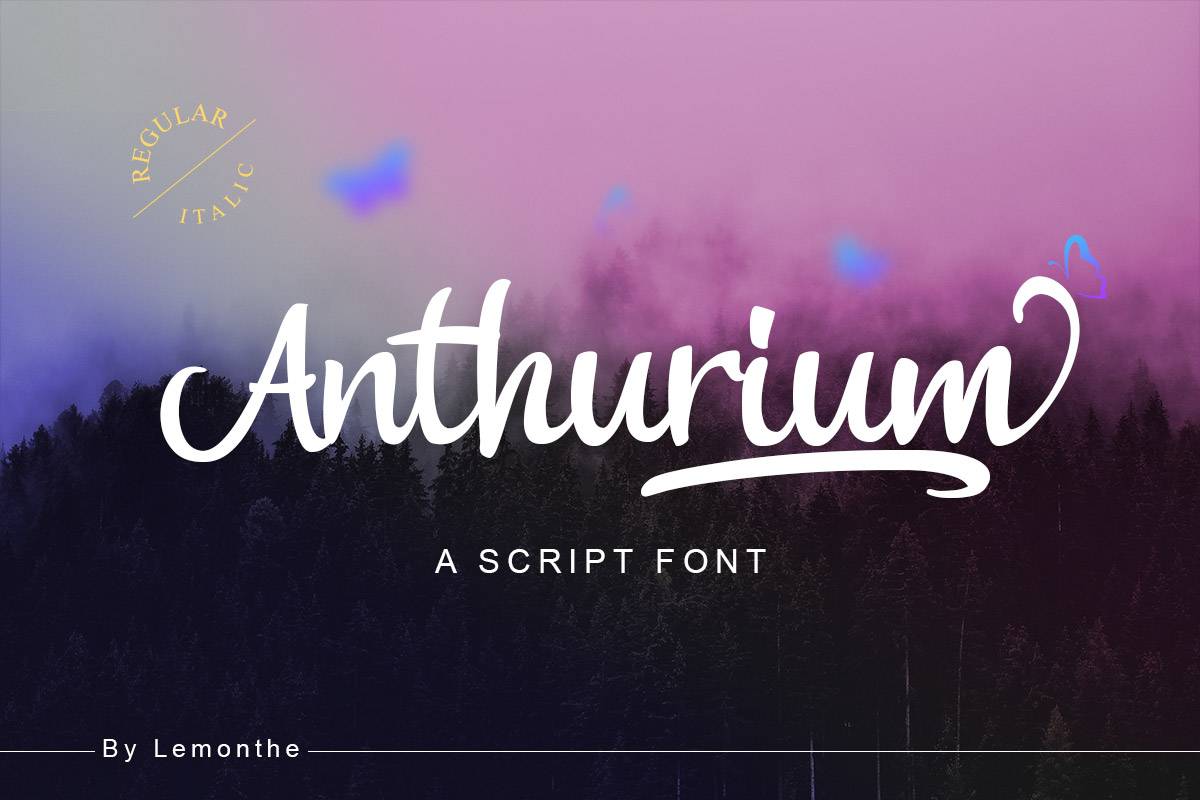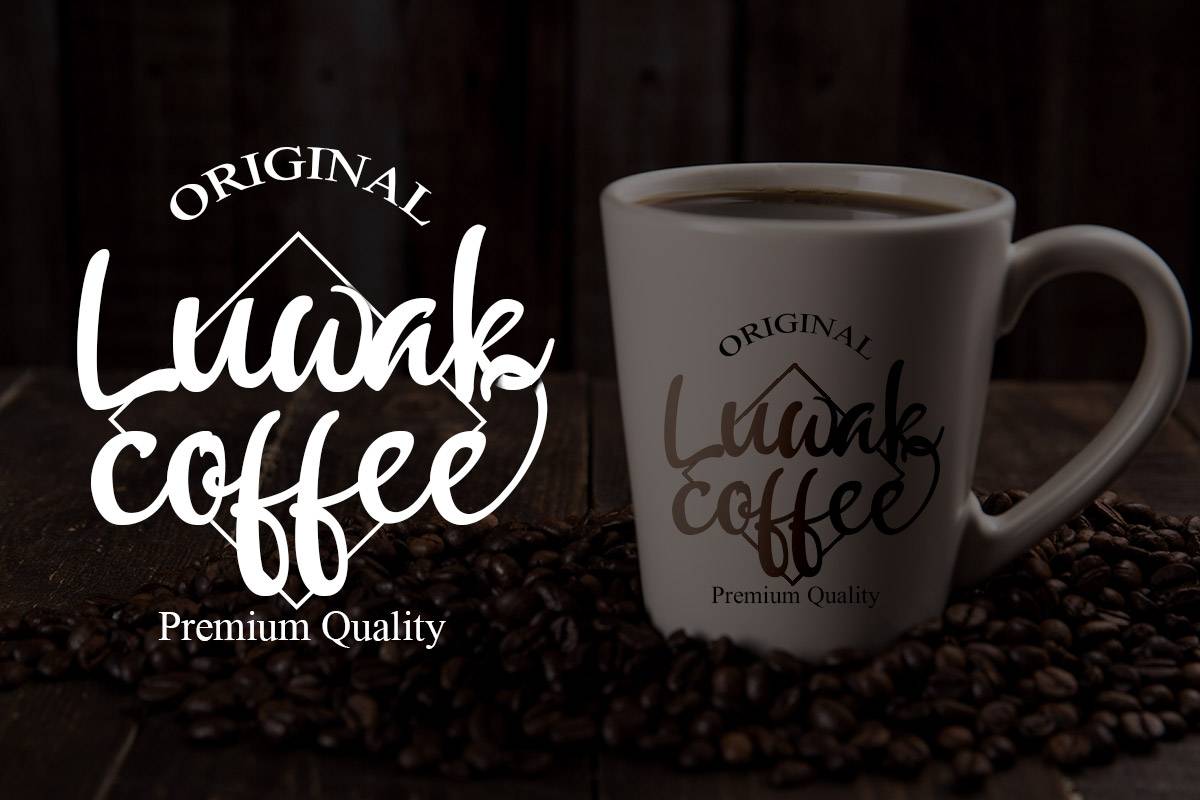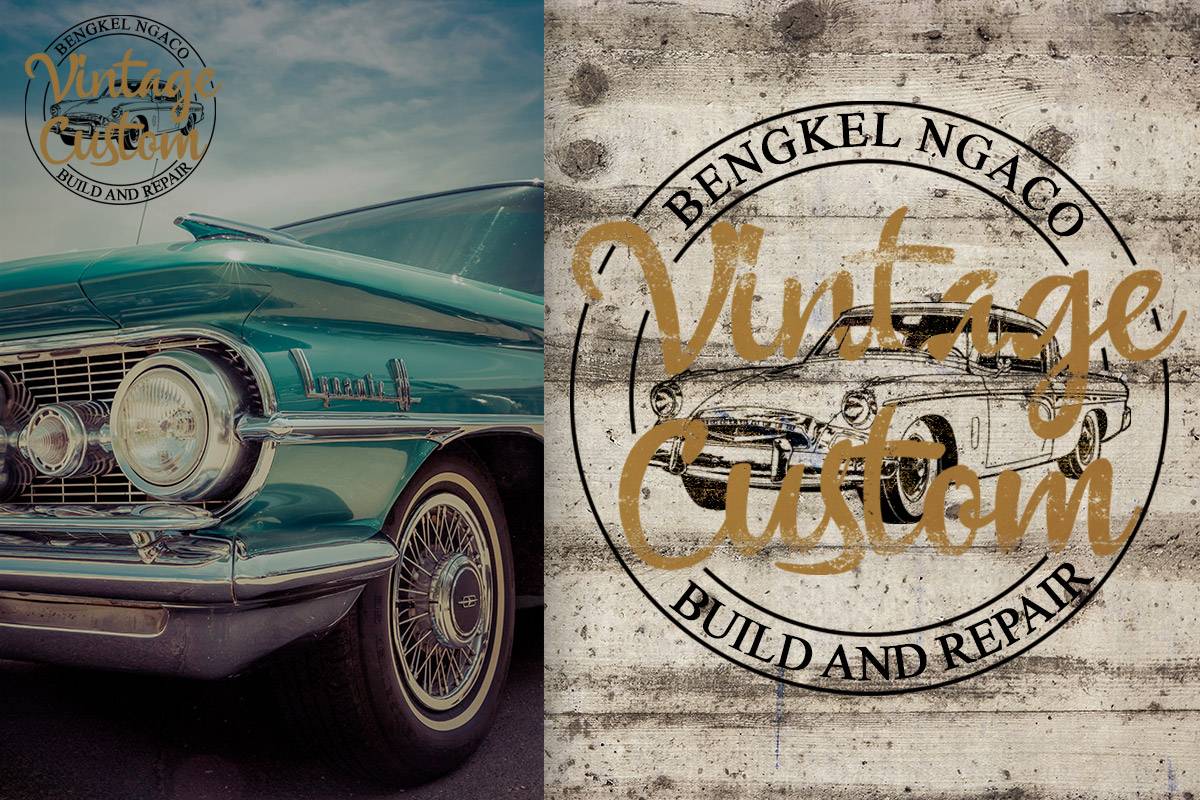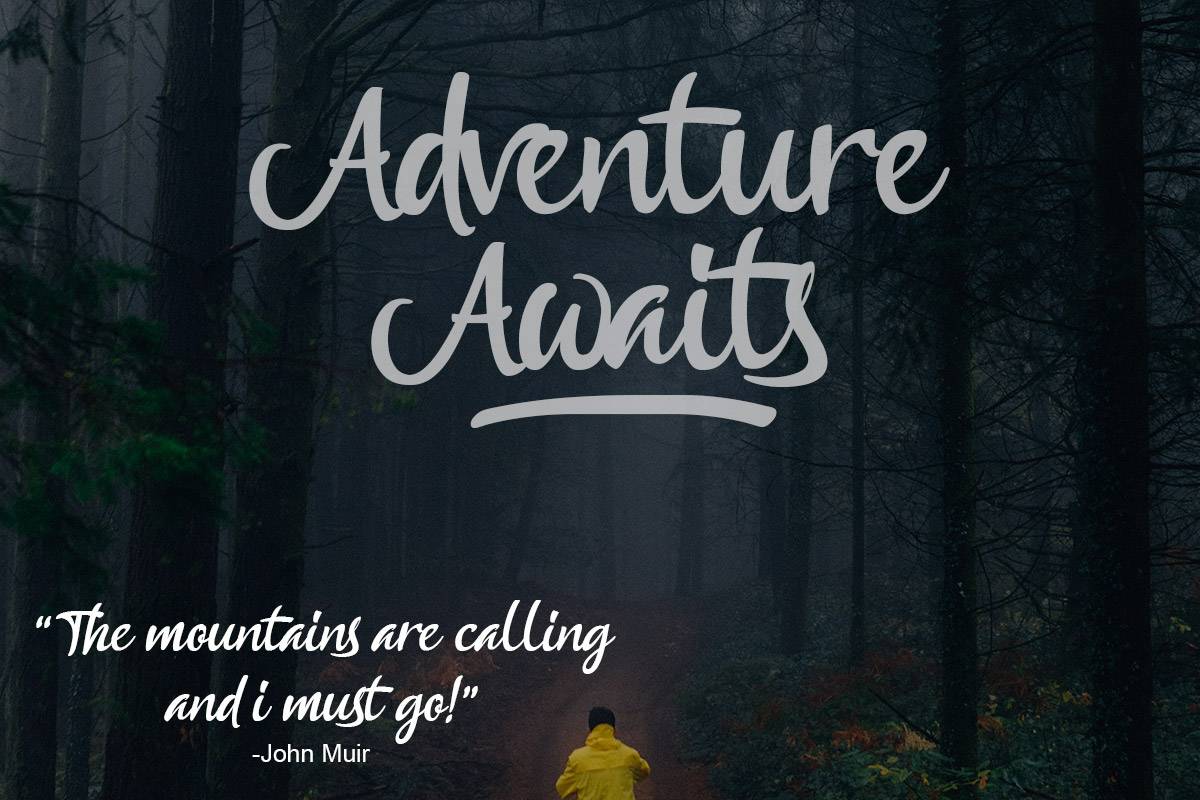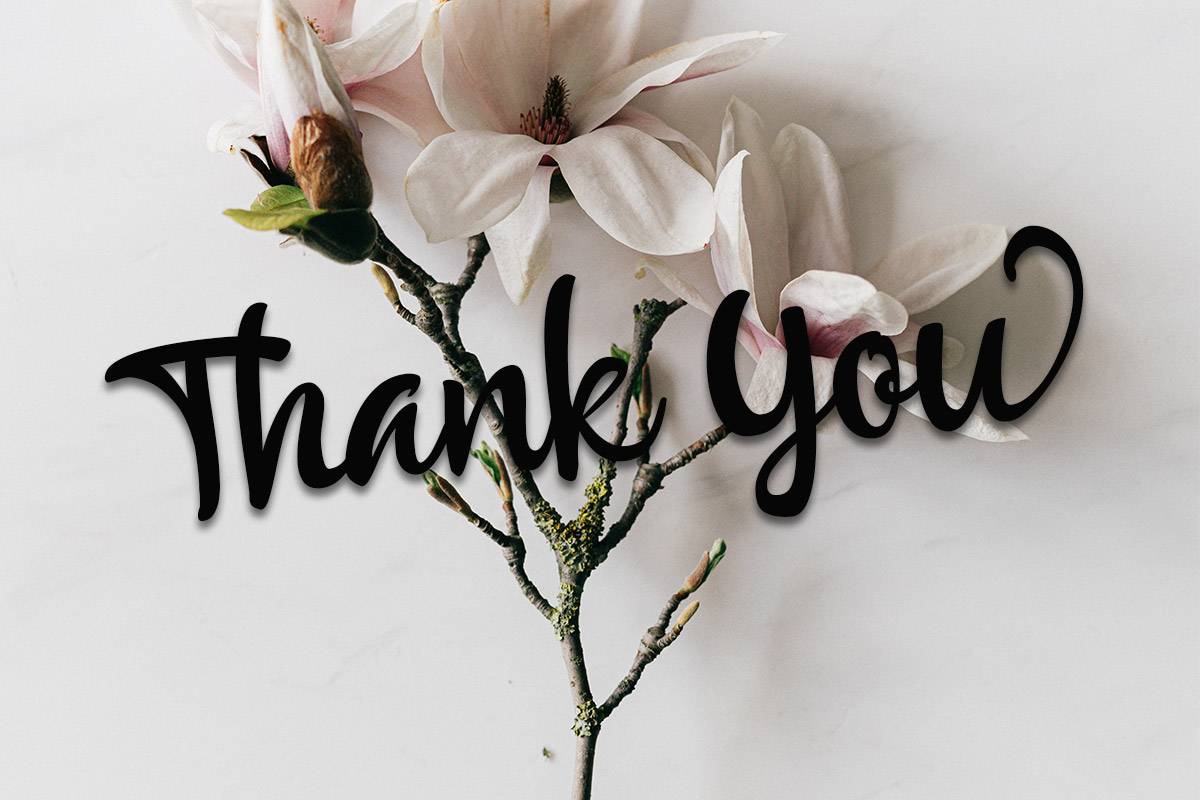
Anthurium is an elegant script font characterized by its smooth, flowing strokes and lively, handwritten feel. With a medium weight and moderate contrast, it offers a refined yet approachable style that works beautifully for sophisticated branding, invitations, and creative headlines. Its blend of cursive charm and readability makes it ideal for fashion, luxury, and lifestyle designs seeking a personal touch.
Anthurium Font
About Anthurium Font
| Font family | Anthurium Font |
| Designer | lemonthe.Dwi Ahidian |